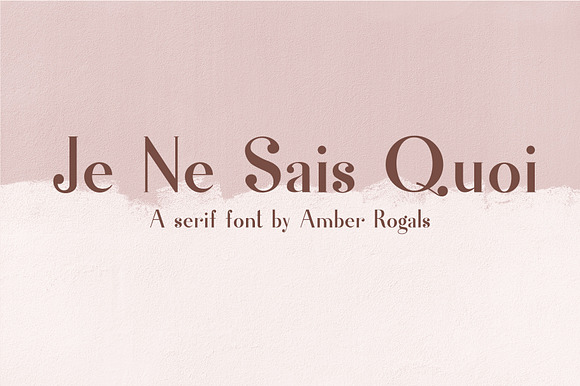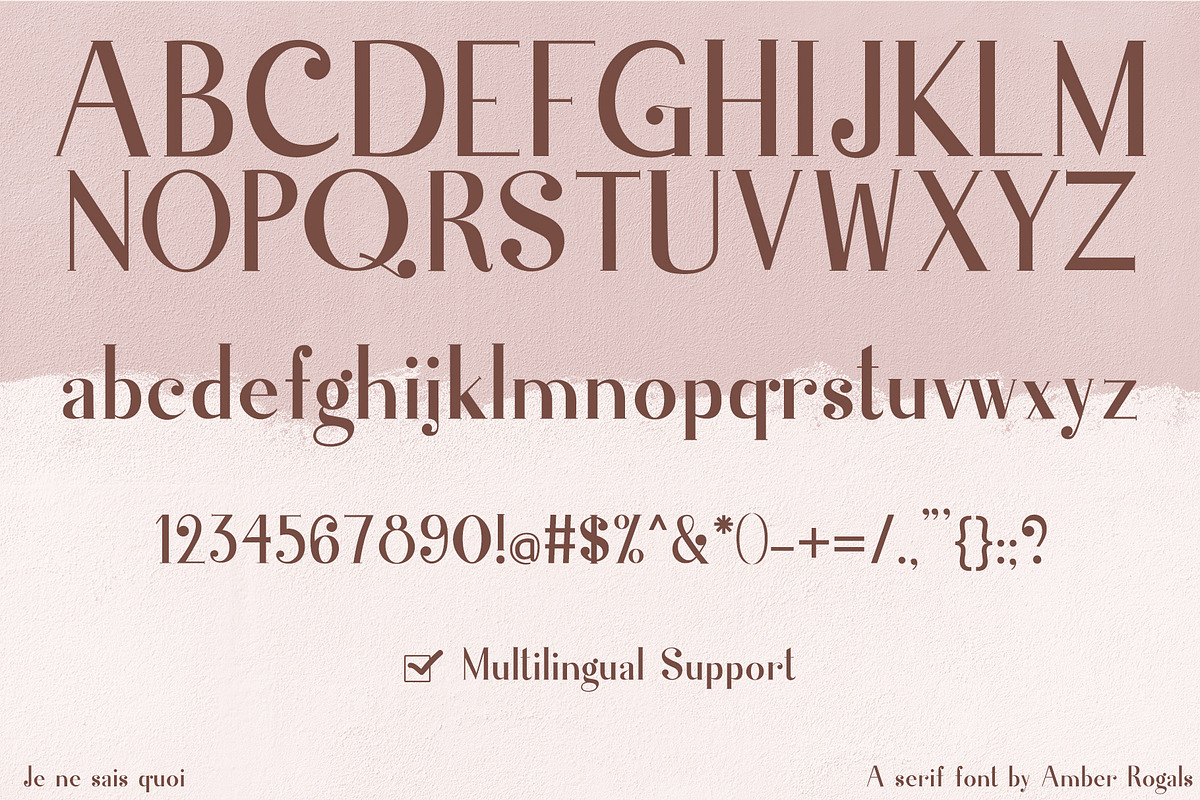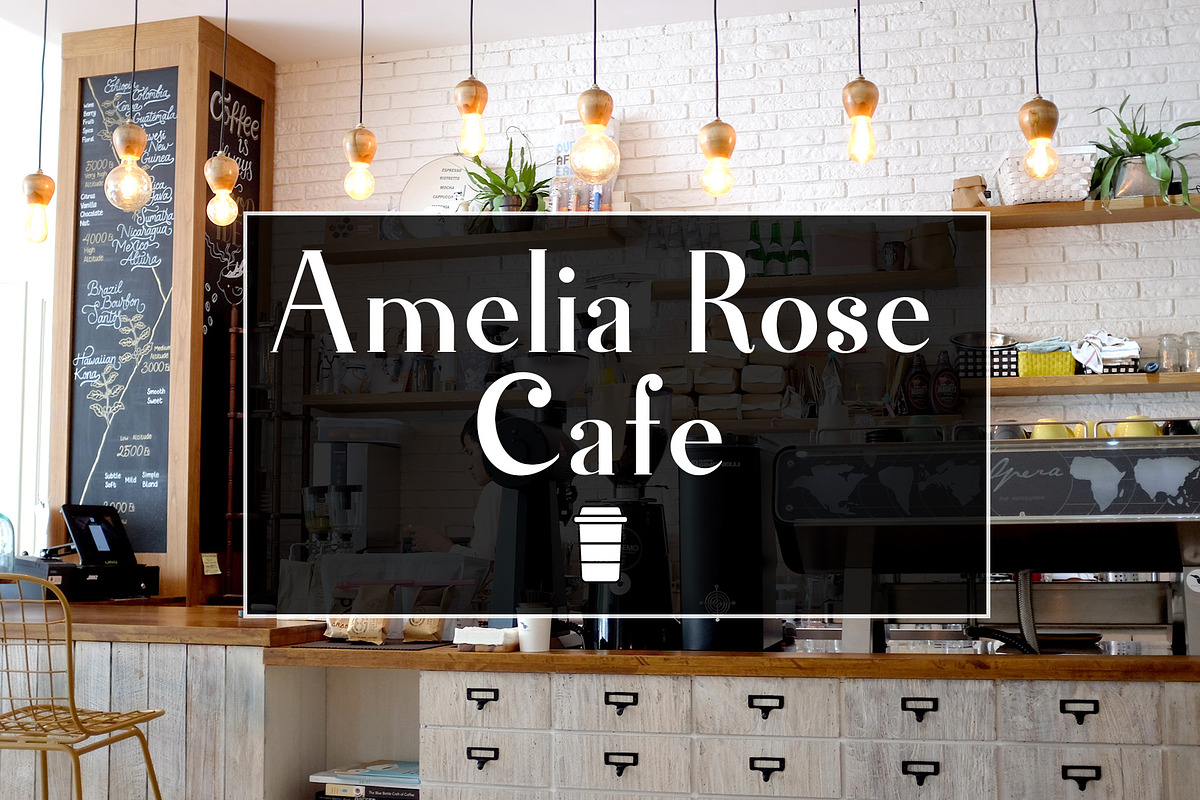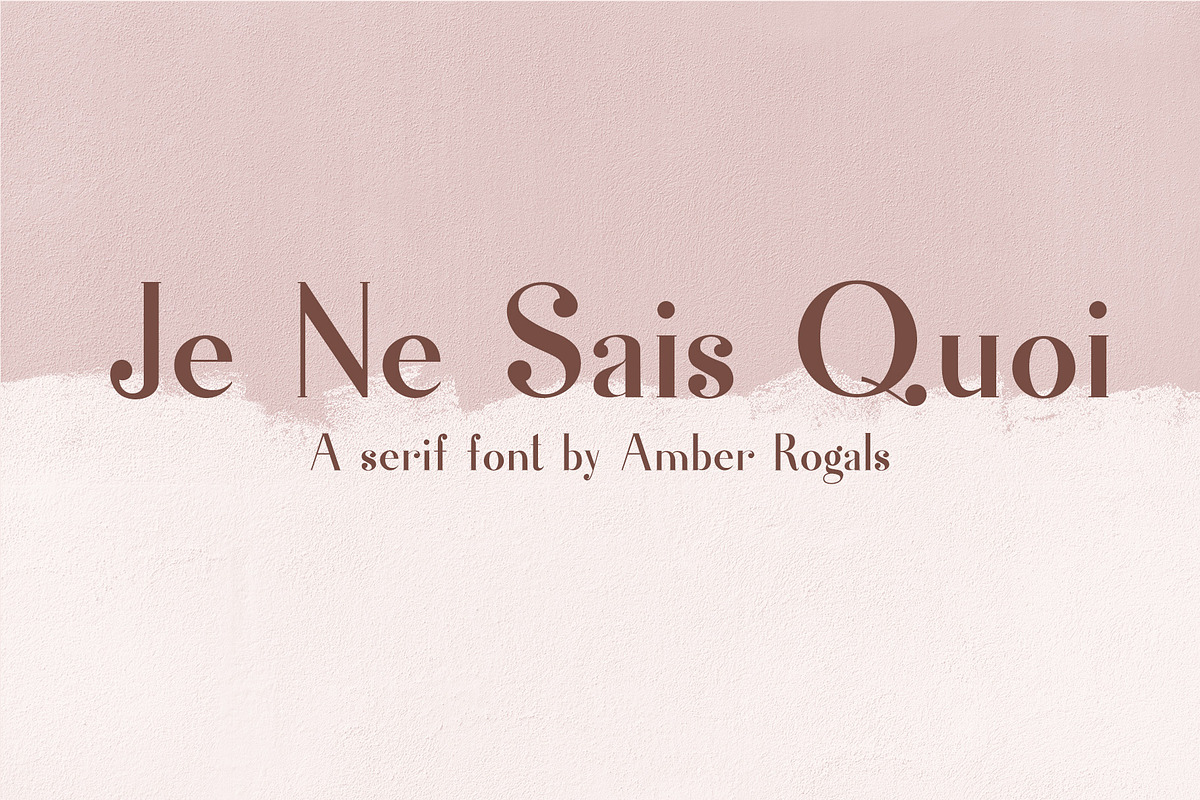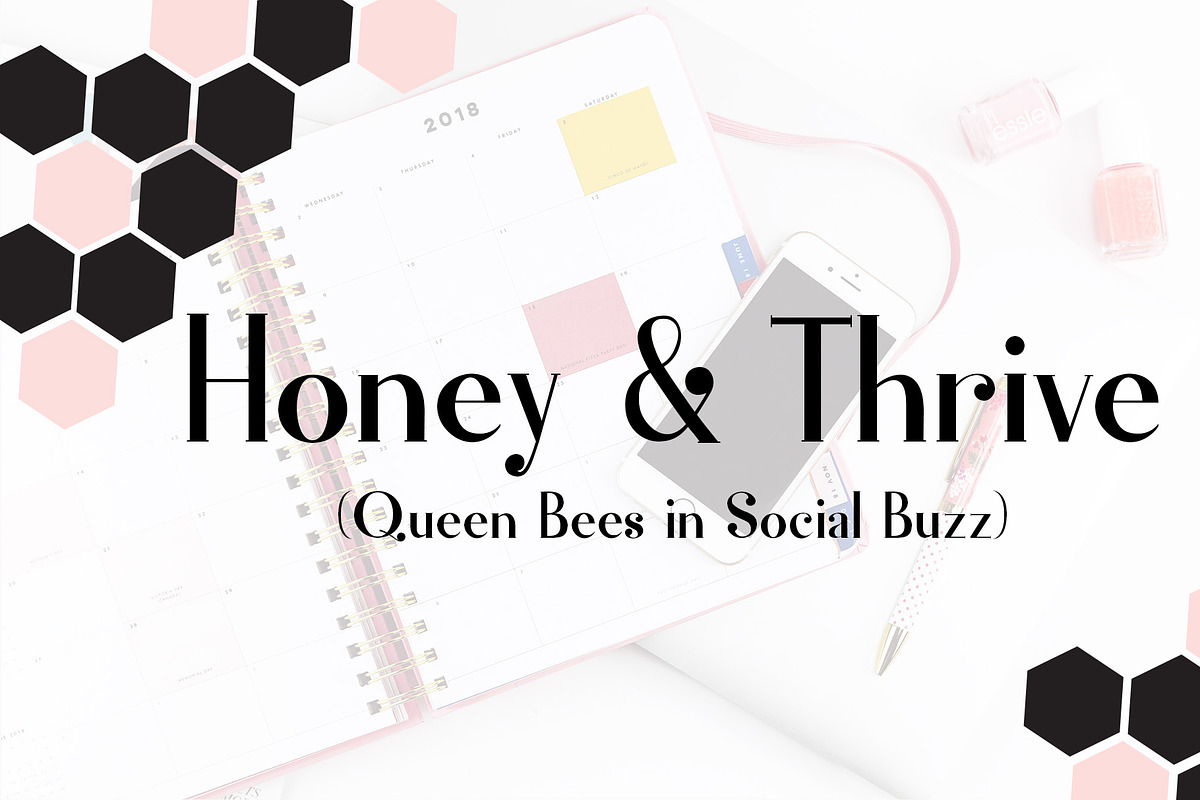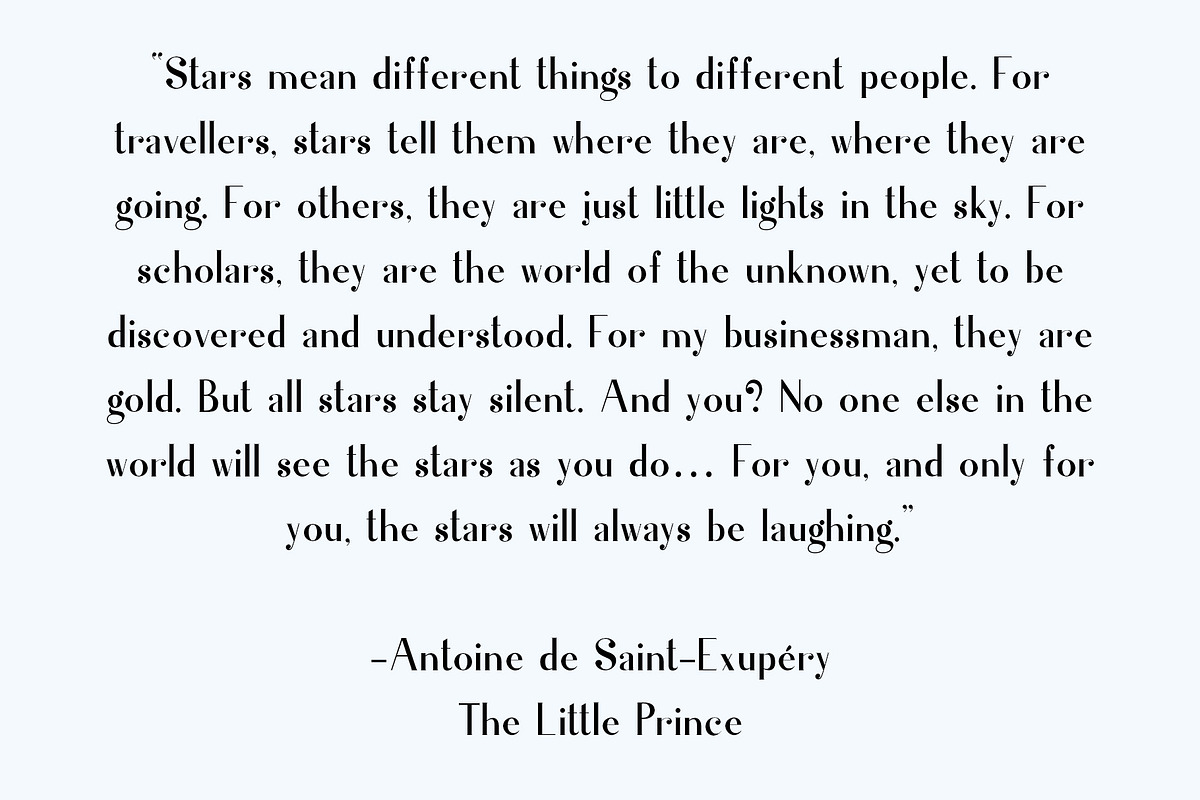
Je Ne Sais Quoi- A Luxury Serif Font
Je Ne Sais Quoi is a beautifully designed modern serif font. I designed this font with the intention of "elegance and luxury, but relaxed." Inspired by older, classic serif fonts, it is casual with luxurious curves and details, such as ball terminals and strong variations of thin and thick strokes. It includes all uppercase & lowercase letters, numbers, punctuation and special characters (because, hashtags, right??) It is also, of course, multilingual supported.
Je Ne Sais Quoi is perfect to incorporate into branding, printed projects such as invitations, letters & events, and much more.